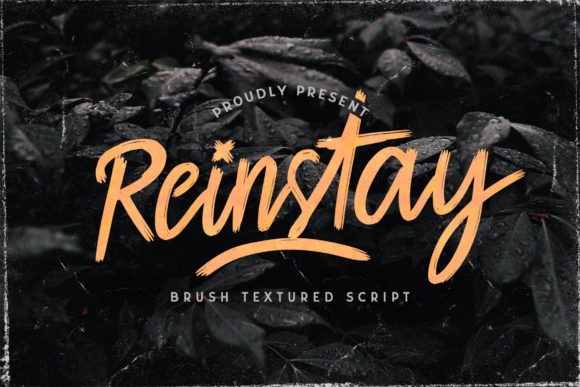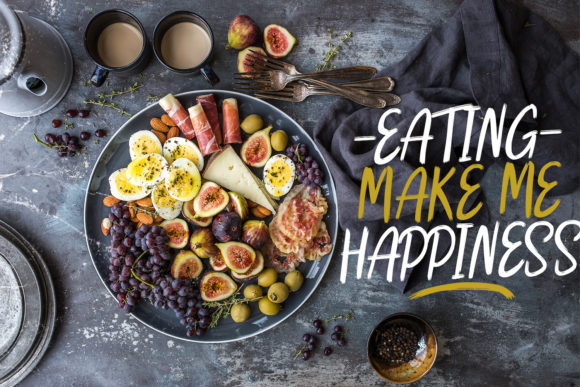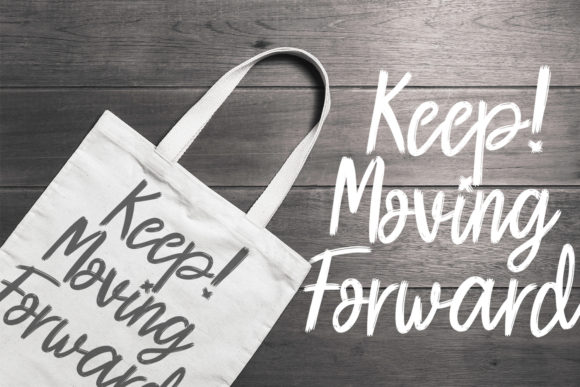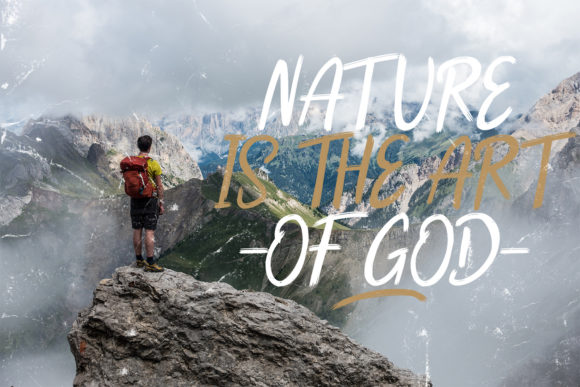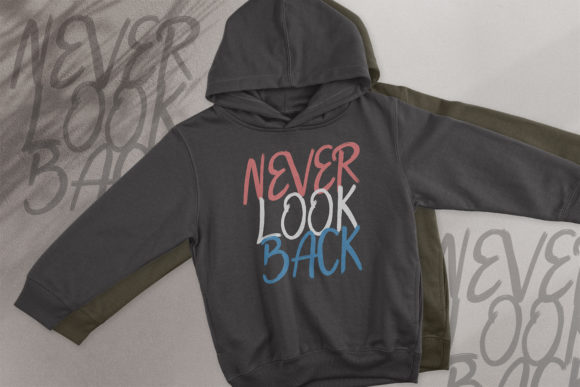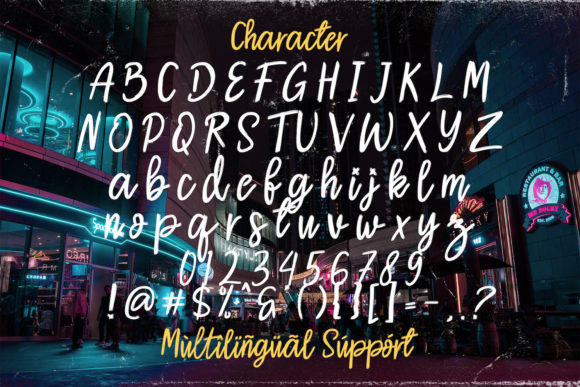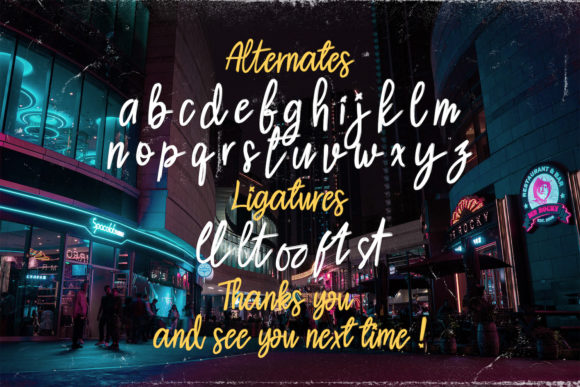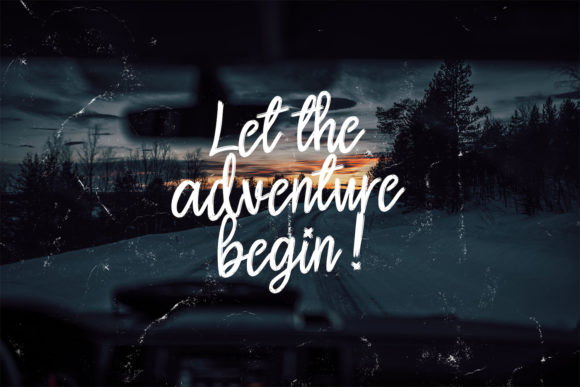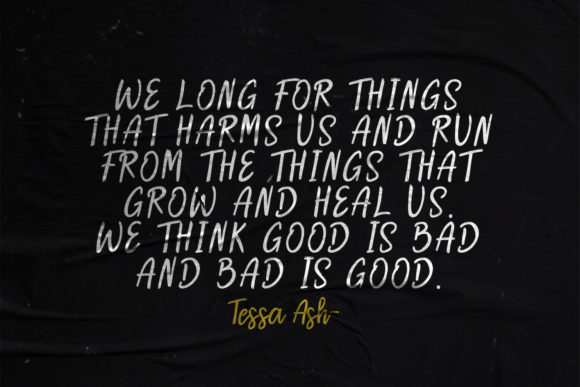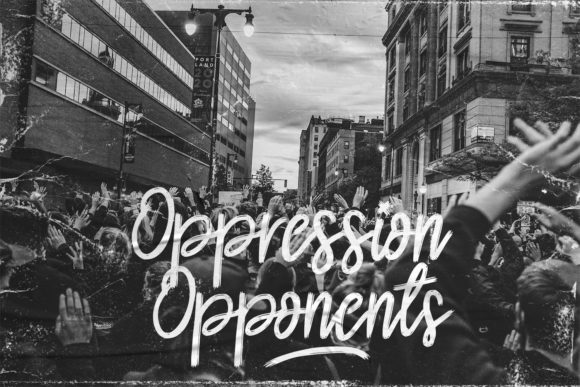
Reinstay Font
About Reinstay Font
Reinstay is a unique font with a textured brush style. This fantastic handwritten font is best suited for headlines of all sizes, as well as for blocks of text that have both maximum and minimum variations. Whether it’s for web, print, moving images or anything else – Reinstay will look spectacular.